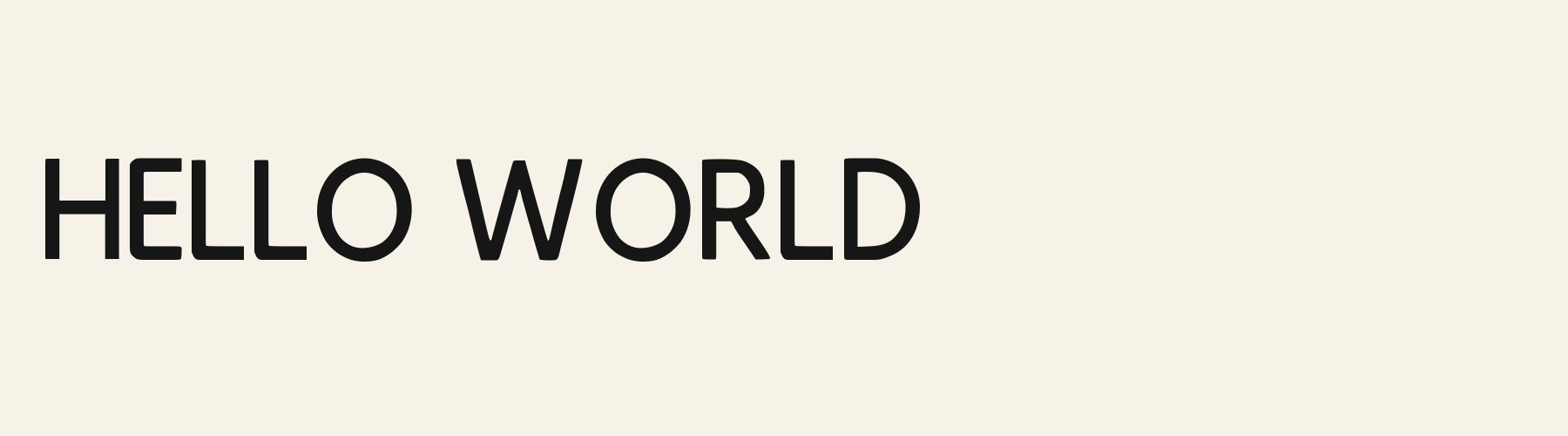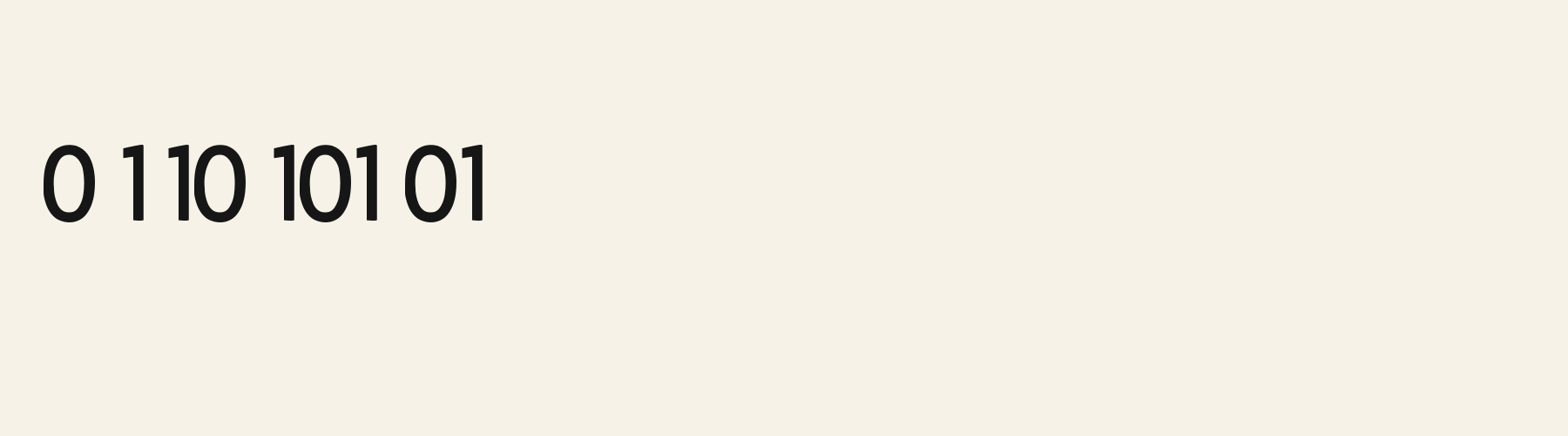
Ion Velvet Grotesk Oval Bowl Rounded Foot Font
Ion Velvet Grotesk combines substantial, nearly even strokes with small soft turns in an otherwise upright uppercase silhouette.
Oval Bowl Rounded Foot Letterforms
Ion Velvet Grotesk combines substantial, nearly even strokes with small soft turns in an otherwise upright uppercase silhouette. The O has an oval outer contour and a similarly oval counter, bringing a smooth rhythm between the straight stems. The E rounds its left corners, while the L curves into a flat horizontal foot. These details soften the letters without making their ends look fully pill shaped. The R adds a straight diagonal leg beneath a compact bowl, and the broad W opens the word shape. Together, these forms give short wording a calm, firm presence.
Inspect repeated L feet, oval O counters, and gaps around W and R in your actual wording. Check lowercase and accented Latin separately, since these specimens show uppercase Latin. For other scripts, inspect a specimen rendered with this font before judging appearance or coverage.
Try this font for short headings or labels, where its substantial strokes and softened E and L corners remain apparent. Pair it with a lighter serif for supporting text, using the serif's stroke contrast to distinguish longer reading passages from the steady heading shapes.
Ion Velvet Grotesk: letterforms and layout
Compare the original spacing with a wider setting. Watch the repeated L feet and the spaces beside O: extra tracking may separate the letters more clearly, while the original setting keeps the uppercase phrase compact.
In this uppercase phrase, Ion Velvet Grotesk has heavier strokes and upright oval O forms. The rounded lower turns of E and L soften an otherwise firm silhouette, suggesting a substantial heading or compact wordmark.
Grid Sans shows thinner strokes, rounded stroke ends, and O forms with long, nearly straight sides and rounded corners. Its uppercase phrase spreads more broadly, suggesting a lighter, more open treatment of the same wording.
Website headline. Substantial strokes and oval O forms give a short website headline a firm silhouette with a softened edge. LOWER
Product label. The curved L foot and steady stroke weight bring a restrained, cohesive character to a simple product label. NEW WORLD
Poster. The broad W and compact R bowl create varied shapes that give a brief poster title a clear rhythm.
About Ion Velvet Grotesk
Its lowercase sits low: the x-height is 67.9% of the cap height, where the median for sans serif fonts is 71.4%, lower than 33 of the 34 other sans serif fonts. Ascenders on b, d, h, k and l line up with the capitals (102.9% of their height), and descenders on g, j, p, q and y drop 34.6% of the cap height below the baseline, the deepest of all 35 sans serif fonts. Ion Velvet Grotesk runs 16.1% narrower than the median for sans serif fonts: an average lowercase letter, spacing included, is 65.7% as wide as the capitals are tall (an average capital, 83%). The o is close to a circle, 0.96 times as wide as it is tall, and W is the widest capital, at 1.68 times the width of H. Round letters overshoot: O rises 0.8% of the cap height above H and dips 1.6% below the baseline.
The letters stand upright, leaning less than 2.5° either way. Vertical stems measure 13.9% of the cap height, heavier than 18 of the 28 other sans serif fonts. Ink covers 37.7% of each lowercase letter's box (its advance width by the cap height), darker than 23 of the 34 other sans serif fonts. It is close to monoline, with the sides of o and O 1.06 times as thick as their tops and bottoms.
Its 345 characters include 245 Latin letters, plus 100 figures, punctuation marks and symbols; 193 of the Latin letters are accented or special forms beyond A to Z. The word space measures 30.2% of the cap height, and the blank space either side of a lowercase letter takes up 14.8% of its width. Spacing is adjusted with 10,920 kerning pairs, the most of all 35 sans serif fonts. The tightest of them is Yd, which closes up by 30.6% of the cap height. The figures have different widths, so columns of numbers set in Ion Velvet Grotesk will not line up exactly.
- Retro Serif Newsprint (serif), Treatise Roman (serif) and Cursive Letterpress Slant (script) are drawn on a different letter structure, so Ion Velvet Grotesk can carry the headings while one of them sets the text. Each has its own page with a type tester for trying the pair.
- In the same sans serif style: Grid Sans (23% wider, lighter strokes); Pinched Counter Grotesk (14% wider, heavier strokes); Civic Sans (lighter strokes).